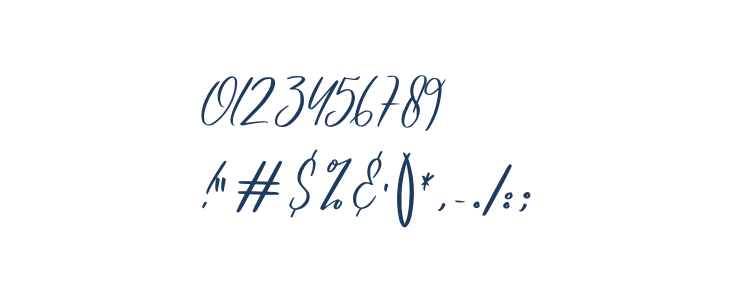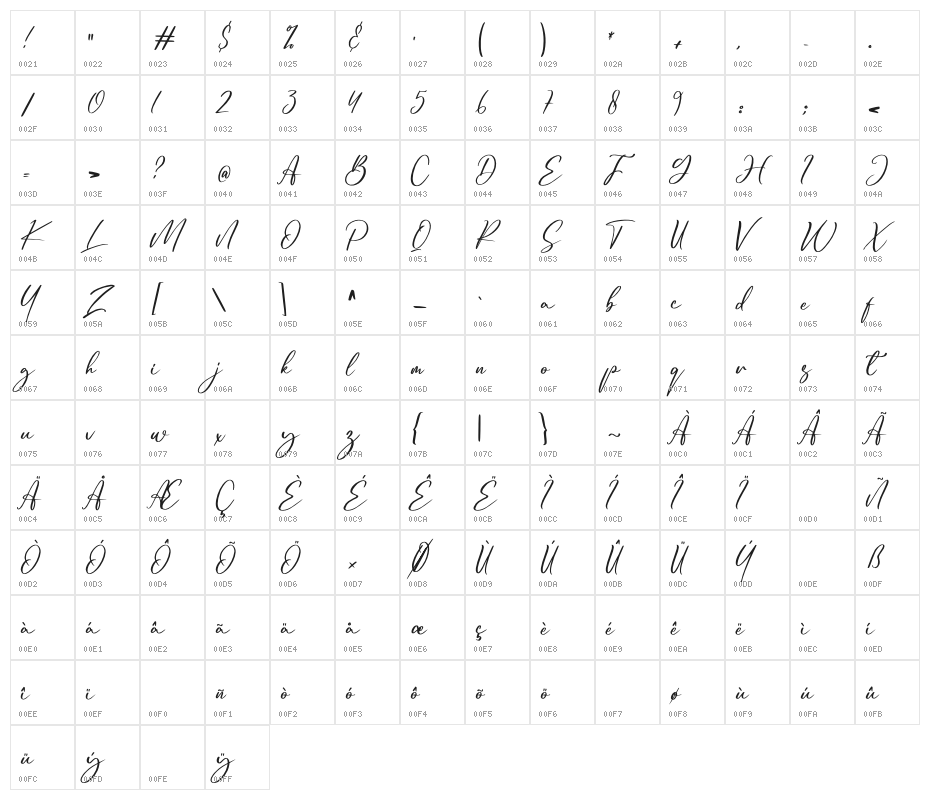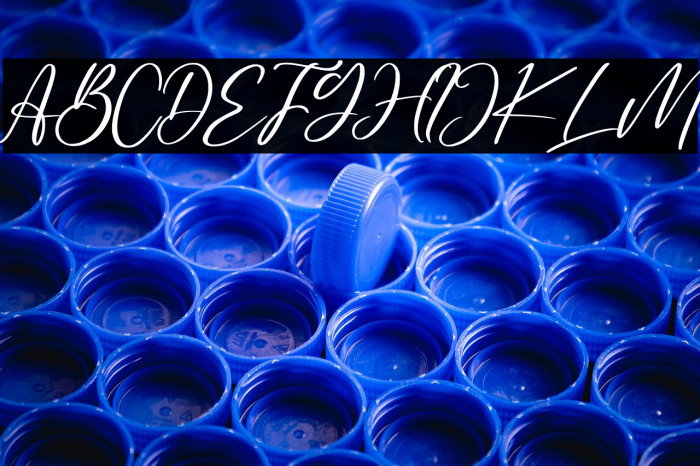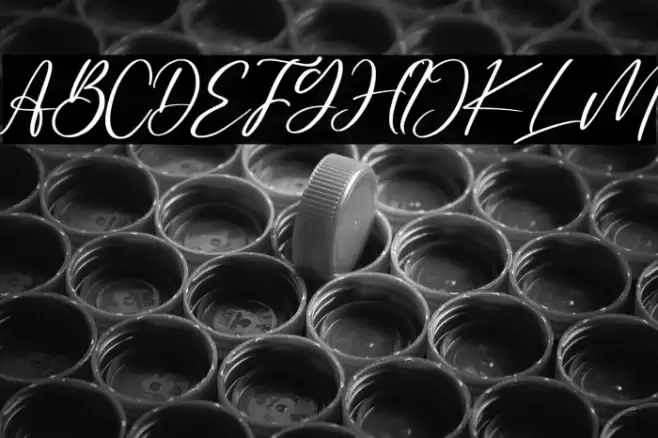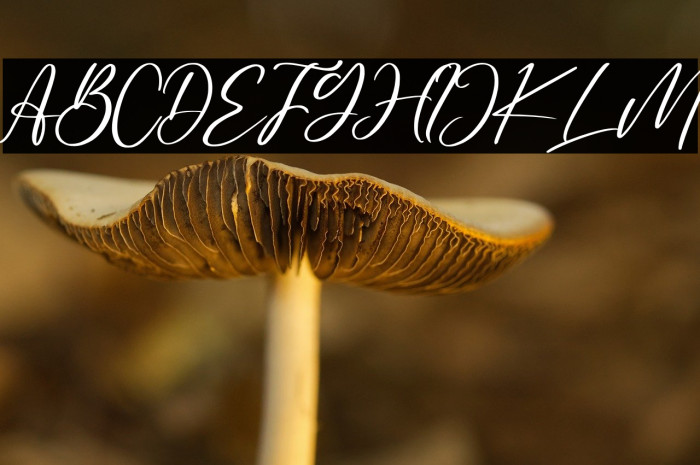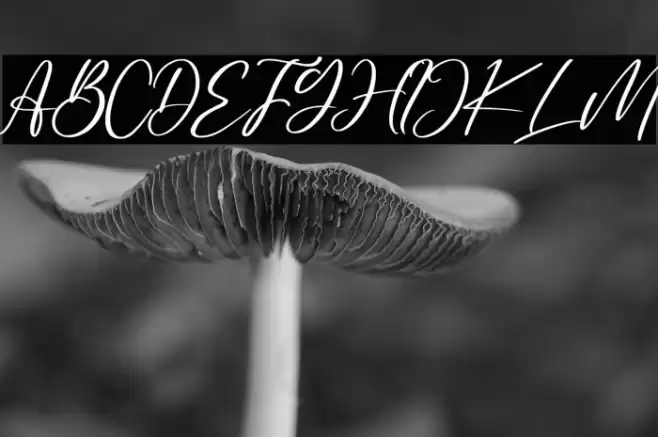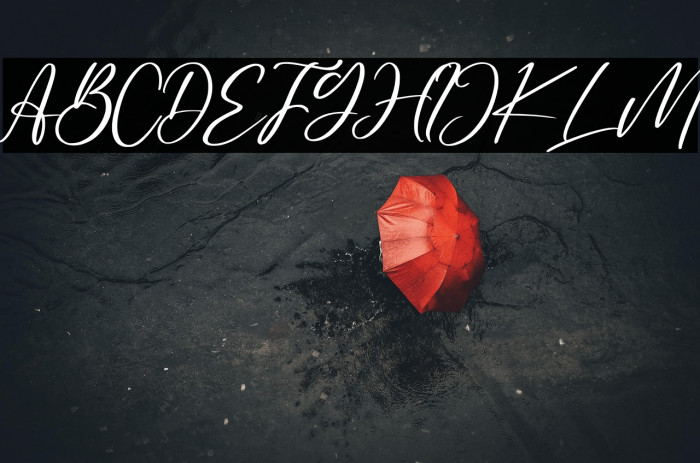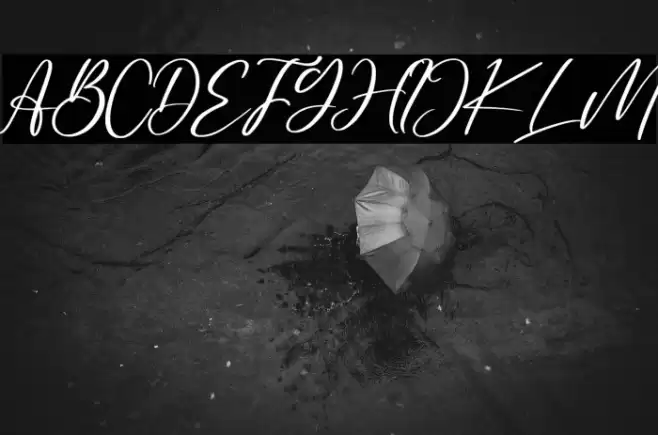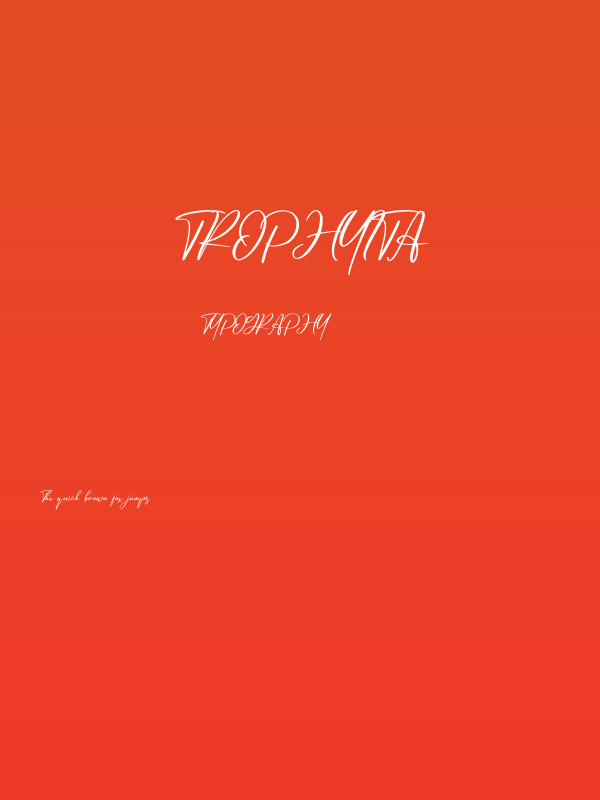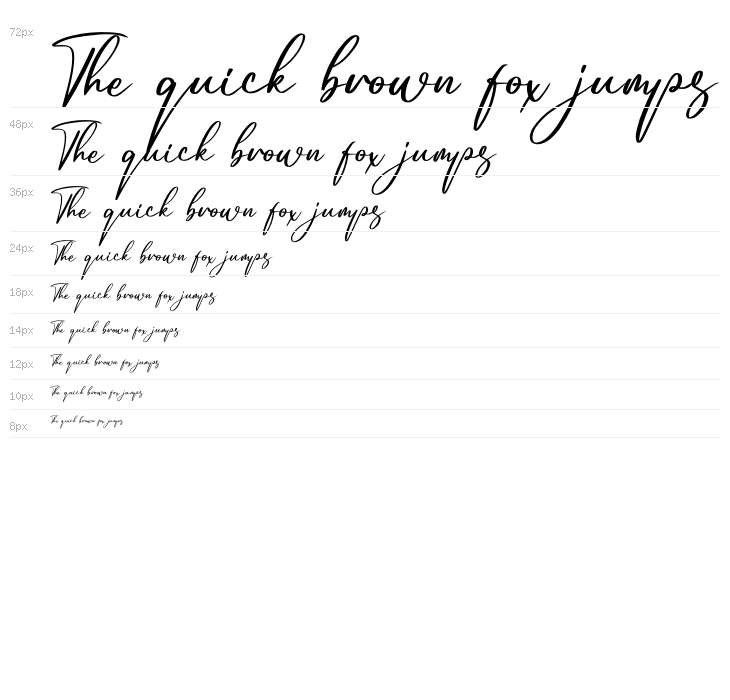
Trophyita Font
Trophyita Description
This font exudes elegance and sophistication with its fluid, cursive style. The characters are intricately designed, featuring smooth, flowing lines that mimic the natural movement of handwriting. Each letter connects seamlessly to the next, creating a harmonious and continuous script. The uppercase letters are grand and sweeping, while the lowercase letters maintain a delicate balance, offering a refined and graceful appearance. The numerals and special characters are crafted with the same attention to detail, ensuring consistency throughout. This font is perfect for adding a touch of class and elegance to any project.